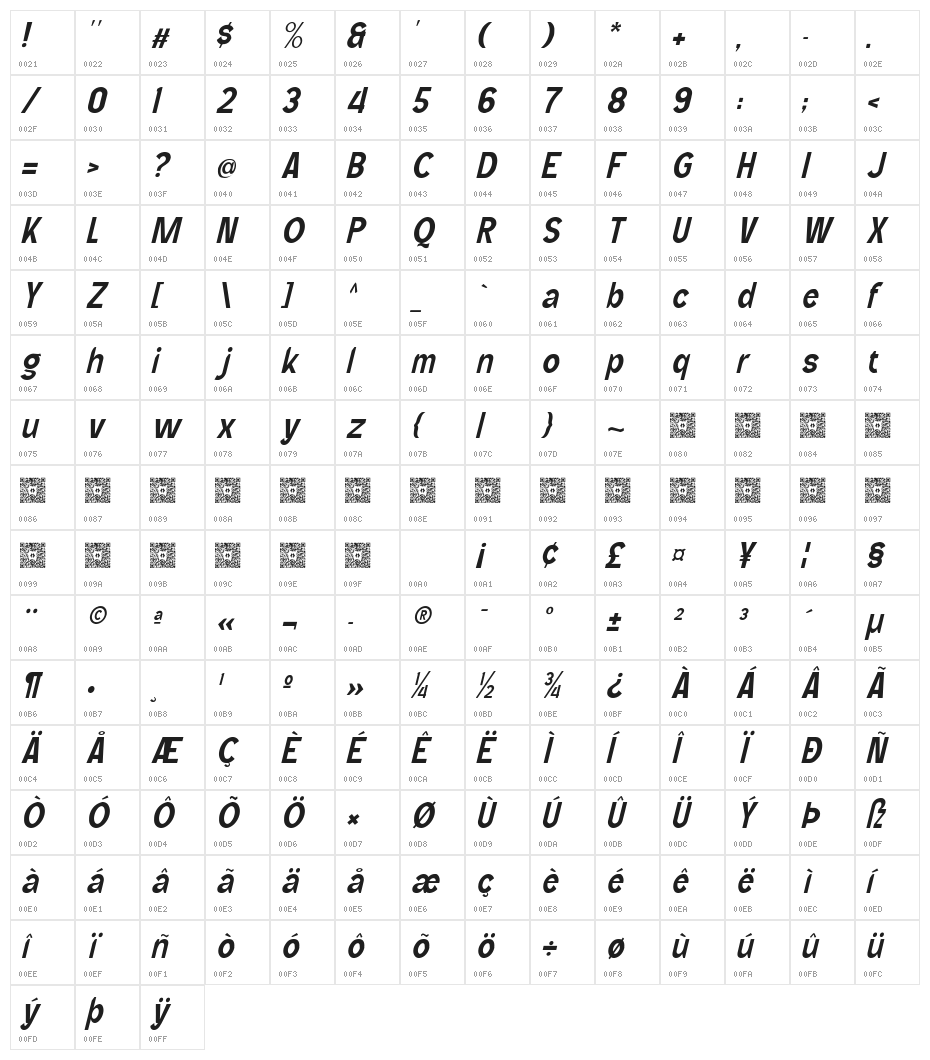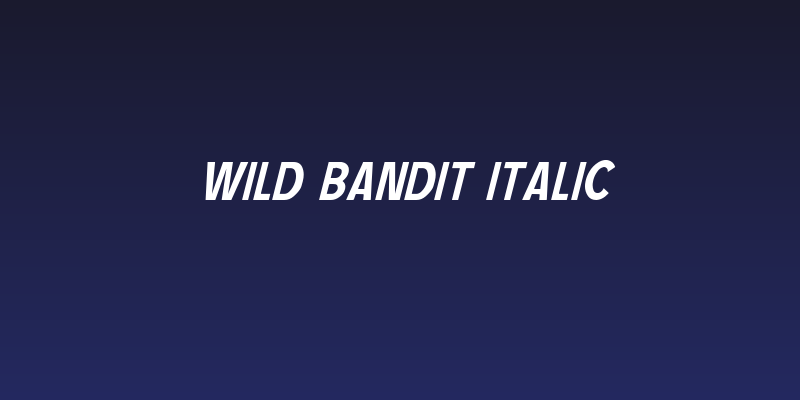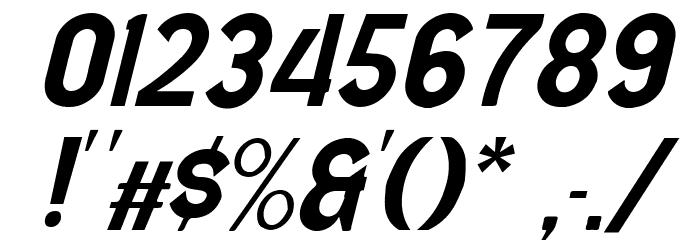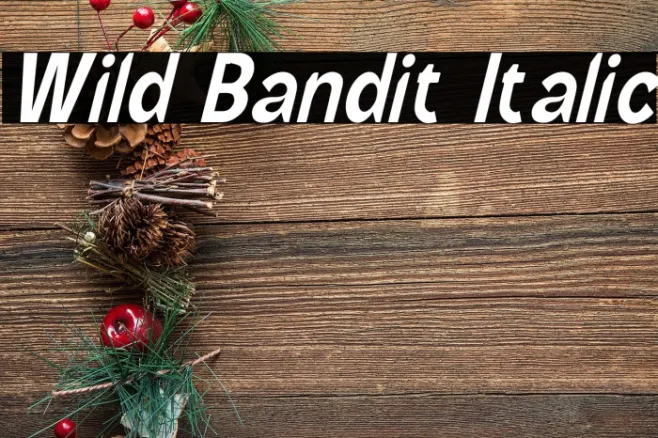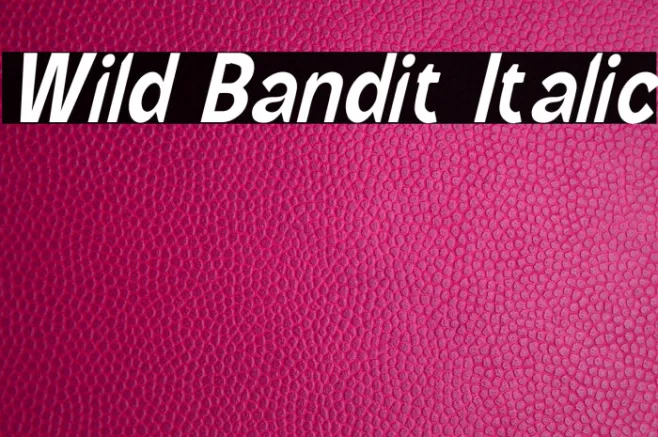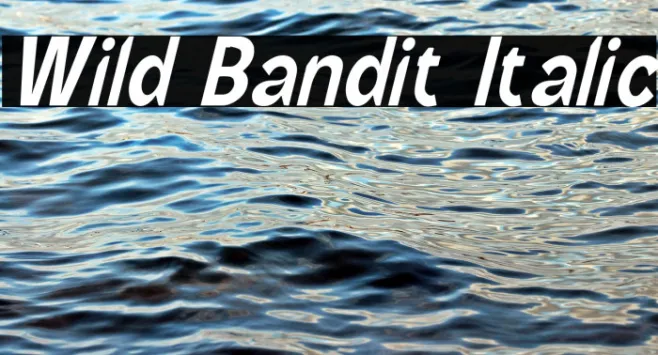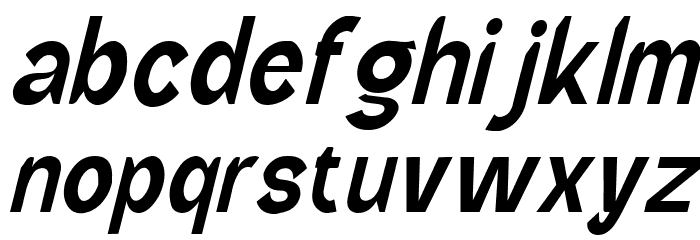
Wild Bandit Italic Font
Wild Bandit Italic Description
This font features a dynamic and energetic italic style, characterized by its forward-leaning posture and bold presence. The letters are slightly condensed, giving it a compact and efficient look. The strokes are thick and consistent, providing a strong visual impact. The font maintains a modern and sleek appearance, suitable for making statements. Its design is clean and straightforward, with minimal decorative elements, allowing for clear readability even at smaller sizes. The numerals and special characters are designed to match the overall style, ensuring uniformity across different text elements.
| Width | Condensed |
| Use Case | Headlines, Logos, Branding |
| Proposed Projects | Ideal for branding, advertising, headlines, and any project requiring a bold and modern touch. |